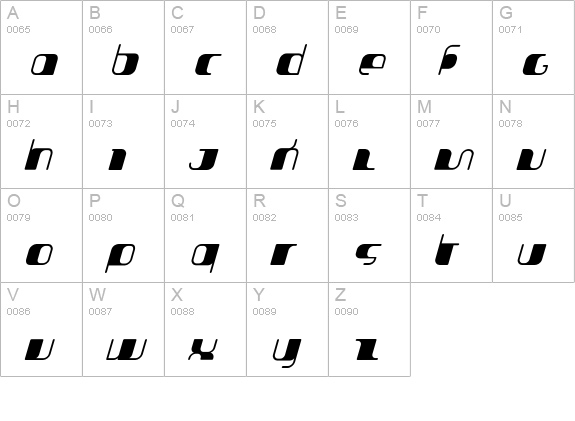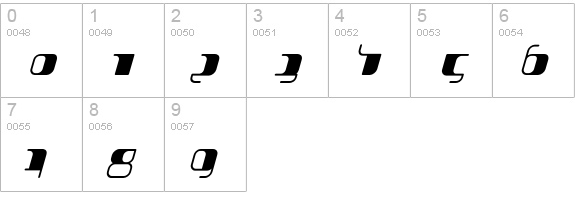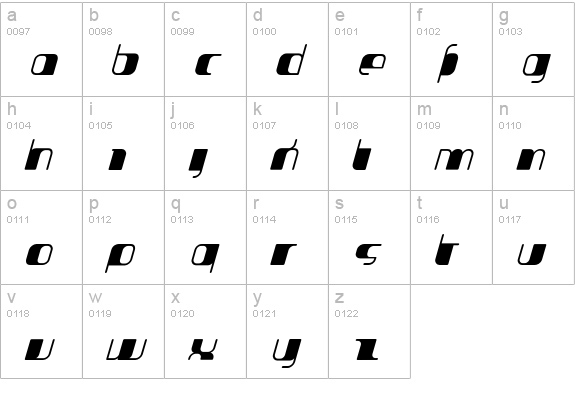
Jakone-BoldItalic is a stunning and versatile font that effortlessly combines boldness with elegance. Its unique design features a perfect balance between thick, bold strokes and delicate, italicized curves. This font exudes a sense of confidence and sophistication, making it perfect for a variety of design projects. With its strong and distinctive characters, Jakone-BoldItalic captures attention and adds a touch of flair to any text. Whether used for headings, titles, logos, or branding materials, this font will make a lasting impression. Its boldness commands attention, while its italicized style adds a touch of creativity and originality. One of the best features of Jakone-BoldItalic is that it is freely available to download at FontsMarket.com. Designers and enthusiasts alike can easily access this incredible font without any cost, making it an ideal choice for those looking to enhance their projects without breaking the bank. The versatility of Jakone-BoldItalic extends beyond design projects. It is also suitable for various mediums, including websites, posters, brochures, packaging, and more. Its legibility and readability ensure that your message is communicated effectively, regardless of the size or context. Embrace the power of Jakone-BoldItalic in your next design endeavor. Its bold and italicized nature will elevate your creations, leaving a lasting impact on your audience. Download this font for free at FontsMarket.com and unlock a world of possibilities for your design projects.